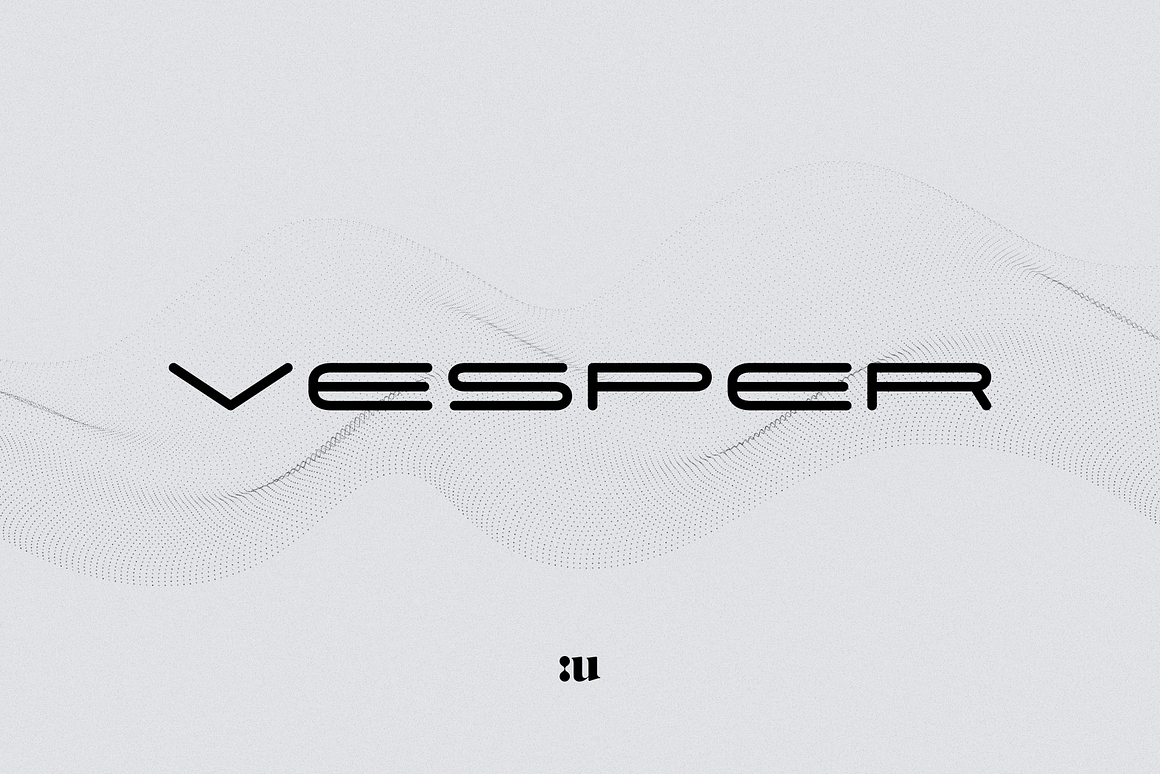
Vesper Font
Vesper Font is perfectly suited for evening event invitations, twilight-themed branding, atmospheric restaurant signage, contemplative book covers, sophisticated wine labels, meditation center materials, spiritual wellness branding, serene spa marketing, and peaceful mindfulness applications.
What makes Vesper Font so exciting is its serene tranquility and contemplative elegance that captures the peaceful essence of evening twilight and quiet reflection in every thoughtfully designed letterform. This enchanting typeface embodies the calming beauty of dusk with its gentle curves and balanced proportions that evoke feelings of peace, introspection, and spiritual harmony. The font's soothing character shapes and harmonious design create an atmosphere of quiet sophistication and mindful presence that resonates with audiences seeking balance, contemplation, and meaningful connection in their lives. Vesper Font stands out through its ability to convey serenity, spiritual depth, and peaceful elegance, making it perfect for projects that need to establish tranquil authority while creating calming experiences that promote reflection, mindfulness, and inner peace.
The Vesper Font family includes Light, Regular, Medium, and Bold weights, each maintaining the font's distinctive contemplative character while providing design flexibility for various peaceful applications. The family also features gentle alternates and meditative design elements that enhance the font's serene appeal and provide comprehensive solutions for mindful design projects.
When you choose Vesper Font Free Download, you're selecting a typeface that brings authentic tranquility and contemplative sophistication to your creative projects. This font excels in creating designs that need to convey peace, spirituality, and thoughtful reflection. Its serene appearance makes it particularly effective for wellness brands, spiritual organizations, and mindful projects that want to establish calming authority while promoting genuine peace and contemplative experiences.
The technical craftsmanship of Vesper Font includes a comprehensive character set with uppercase and lowercase letters, numerals, punctuation marks, and peaceful symbols that maintain the font's contemplative character. The font has been carefully optimized for both digital and print applications, ensuring consistent performance while preserving the gentle, serene details that give it its distinctive peaceful character and meditative appeal.
Whether you're designing spiritual materials, creating wellness brand identities, developing meditation applications, or crafting designs that need to convey tranquility and contemplative depth, Vesper Font delivers the perfect combination of peaceful authenticity and contemporary functionality that makes your projects resonate with audiences seeking genuine serenity and meaningful spiritual connection in their daily lives.